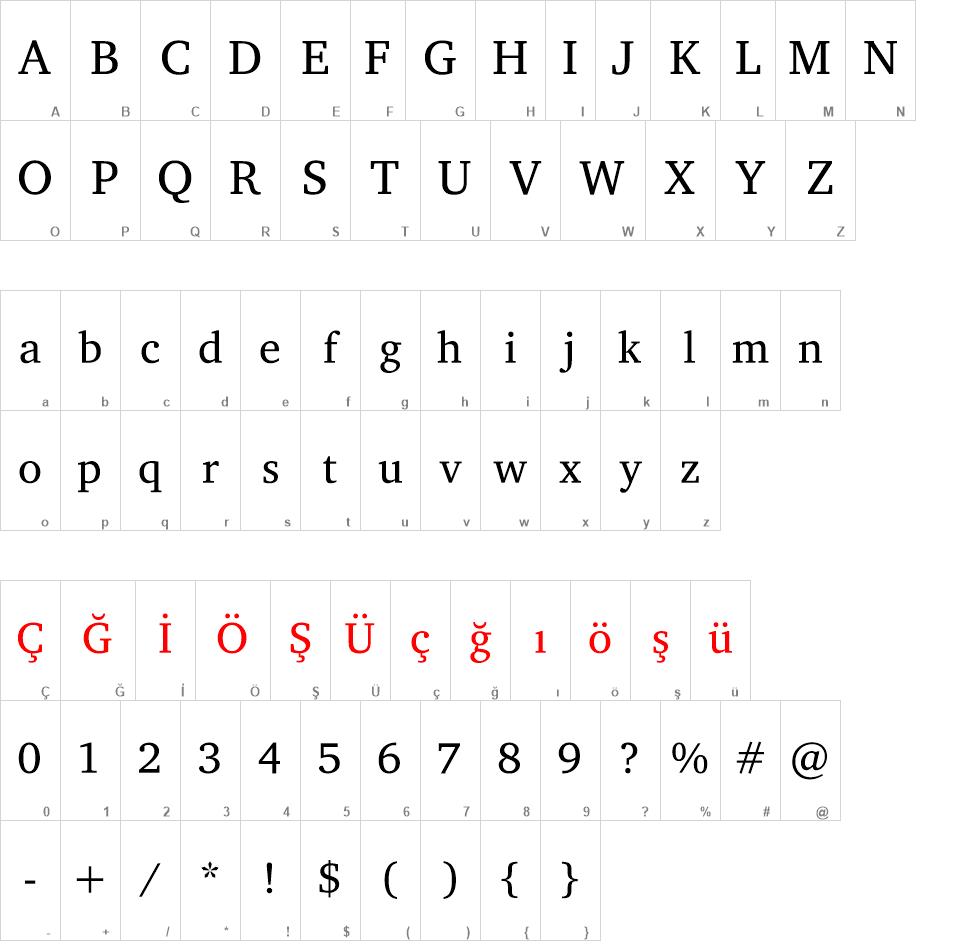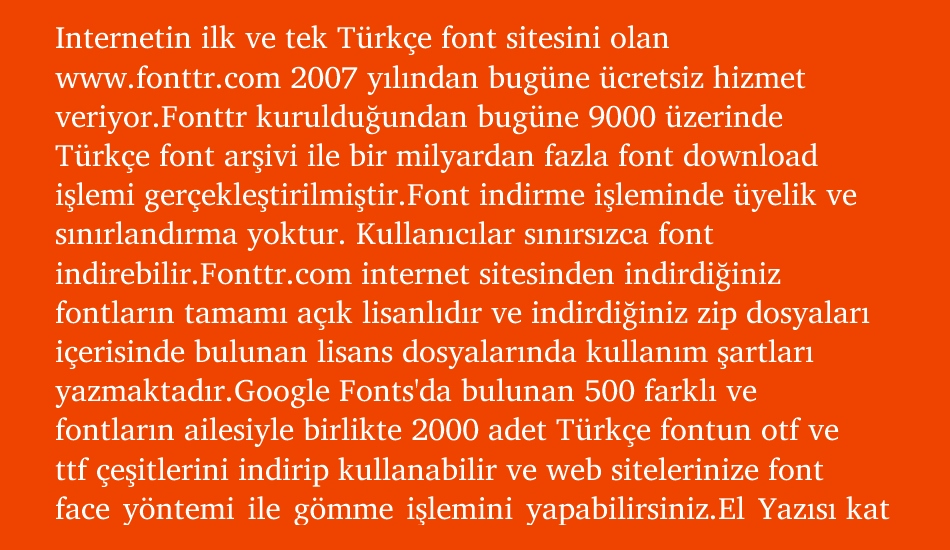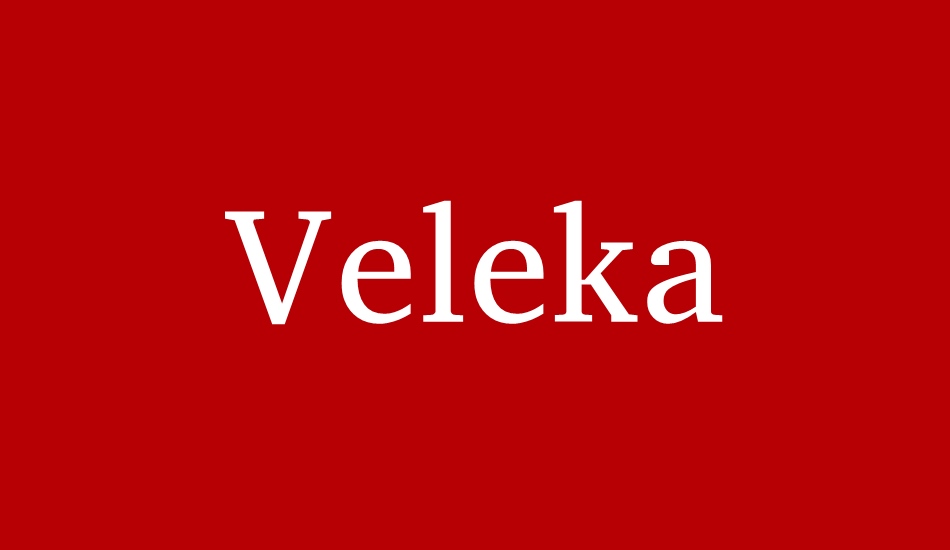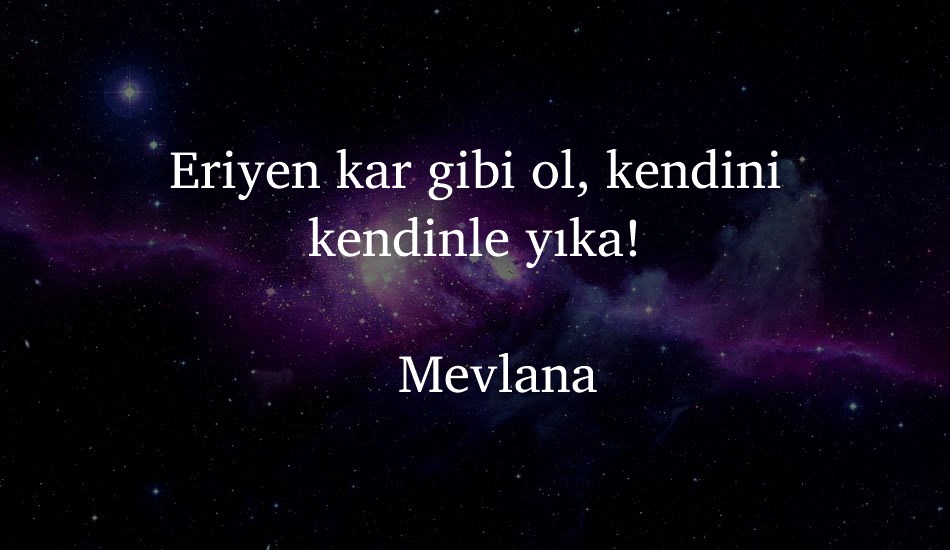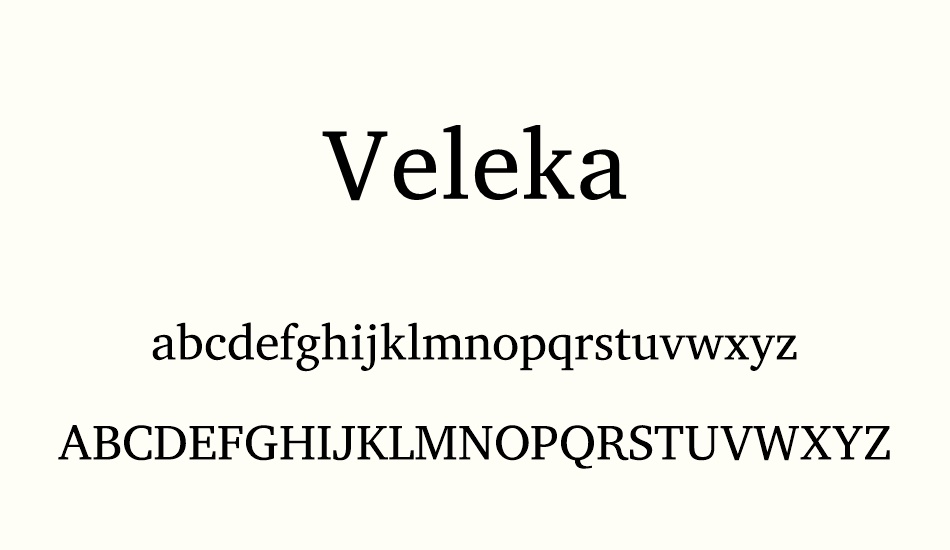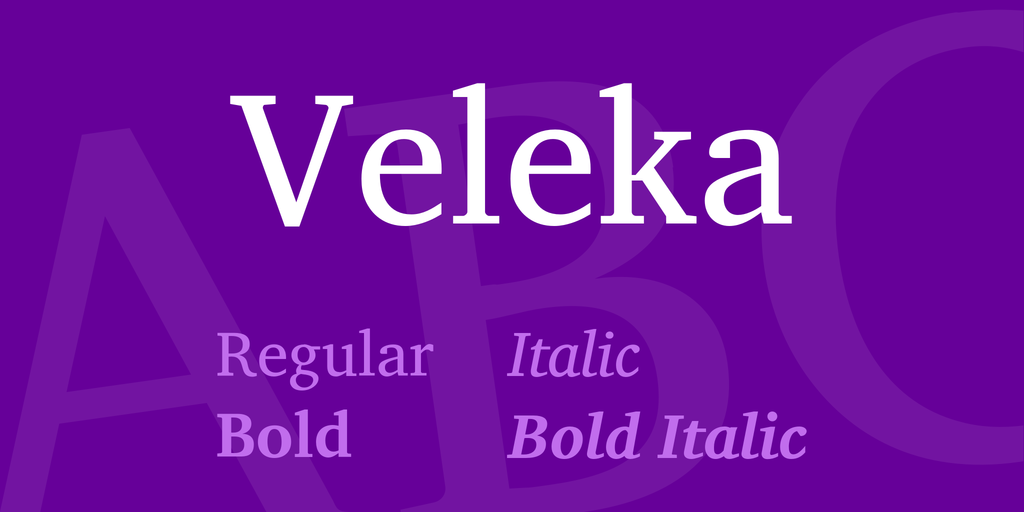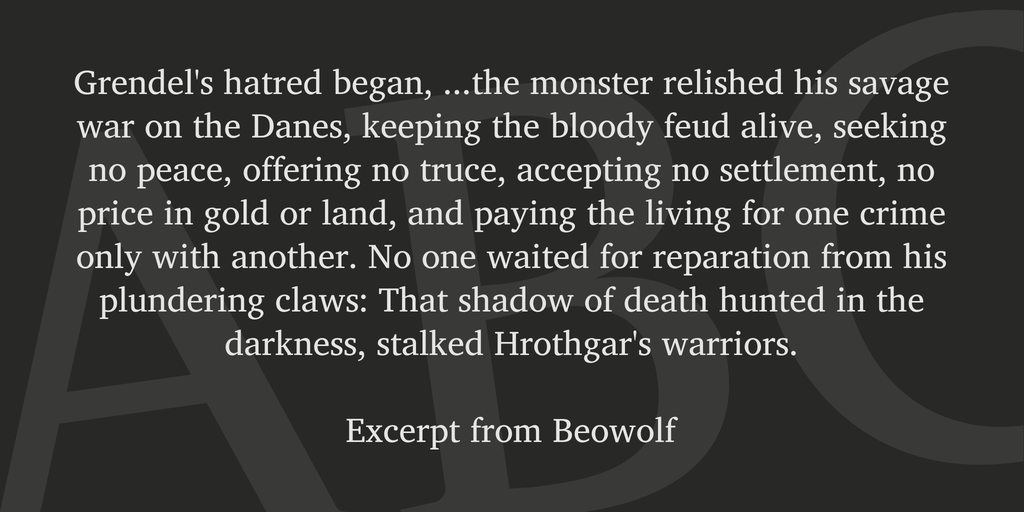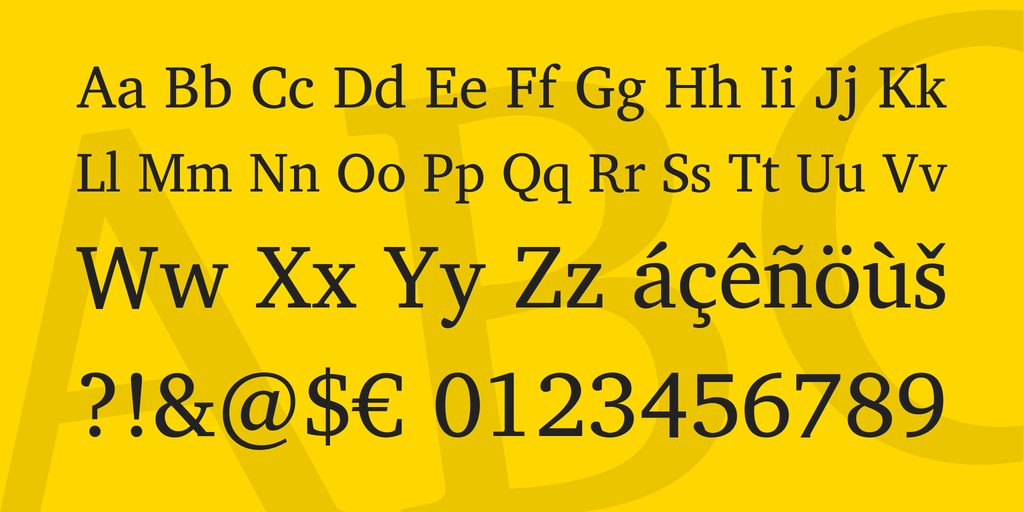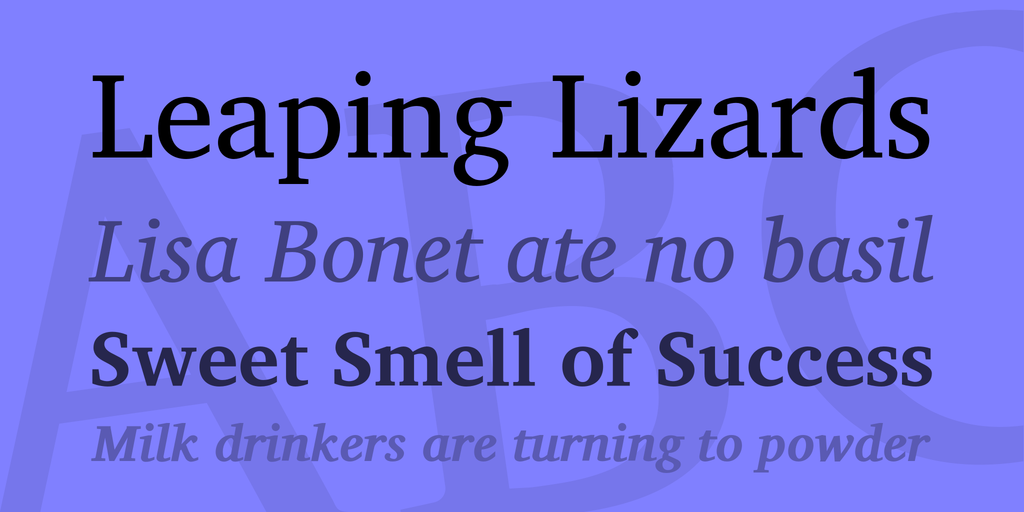
Veleka font
Although Charis SIL is intended to be a multilingual font it has some limitations, which were the reason to create the Veleka font.
What is new in the Veleka v. 1.000?
1. There will be a full support for Greek in the Unicode range uni0370:uni03CE.
2. There are two models of Cyrillic for the range uni0410:uniuni044F (Modern Bulgarian Cyrillic and Russian Traditional Cyrillic).
3. There are two ways to switch between the modern and traditional Cyrillic (either by using locl feature for Russin language, or by using Style Set 01 feature).
4. There will be a full support for Open Type features: Latin All Caps (case + cpsp), Ligatures, Discretionary Ligatures, Fractions, Ordinals, Swash, Titling Alternates, Contextual Alternates, Small Caps, All Small Caps, Slashed Zero, Stylistic Set 01, Stylistic Set 02, Superscript/Superior, Subscript/Inferior, Numerator, Denominator, Proportional Oldstyle, Proportional Lining, Tabular Oldstyle, Tabular Lining, Default Figure Style.
5. There will be a lot of new glyphs in all the main Unicode ranges: Latin, Greek, Cyrillic, IPA etc.
6. The glyphs are rearranged according to Unicode 9.0.
What is expected to be done in the near future for Veleka font?
Please, keep in mind that till v. 2.000 the Veleka font is still in prerelease version. There is a lot of work to be done:
1. Full support for Greek Extended range uni1F00:uni1FFF.
2. Maximum support for Cyrillic. It means full and easy support not only for Russian and Bulgarian Cyrillic, but also for Serbian and Macedonian.
How to switch Russian glyphs model – either use Russian as a local language or use Style Set 01. How to switch to Serbian glyphs model – use Style Set 02. How to switch to Macedonian glyphs model – use Style Set 03. For any other cyrillic glyphs models – use Style Set 01.
3. Bug fixing, clearing of the design of the glyphs, better metrics and better hinting.
Although Veleka is derivated font it is quite different from the original, offering a lot of new features and being a multilingual font.